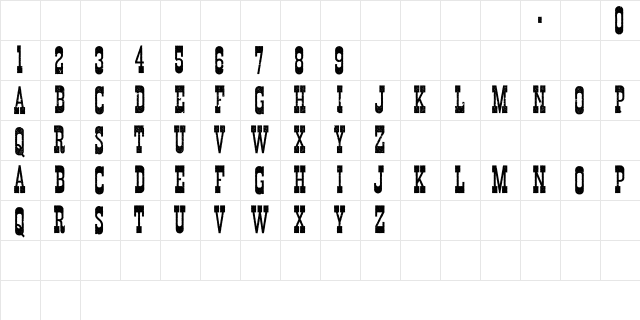
Durango Western Eroded echoes the hand-painted signage and woodblock typography of the American frontier, with a warm, rugged personality.
Font Pairing: Combine Durango Western Eroded with a simple slab or neutral sans - period-accurate companions reinforce the vintage feel without competing for attention.
Pro Tip: Use Durango Western Eroded for short, impactful bursts of text - it shines in poster headlines and product names rather than extended copy.